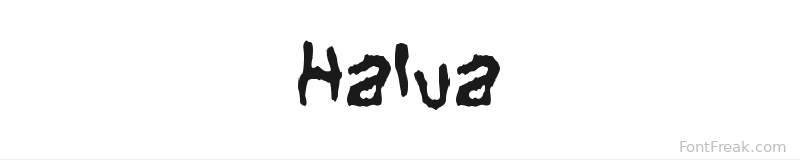
Halua
Halua, designed by Wahyu Eka Prasetya, is a captivating display font that beautifully blends artistic flair with legibility. This font falls into the category of decorative typefaces, characterized by its unique and playful style. The Halua font showcases a medium stroke weight with subtle contrast, giving it a hand-crafted feel while maintaining a consistent readability across various sizes. The irregular, flowing forms add a dynamic quality, making it ideal for creative projects that require a touch of personality.
Ideal for a range of applications, the Halua font is perfect for wedding invitations, where its whimsical style can enhance romantic themes. It's also a great choice for movie posters, adding an artistic edge that can draw in viewers. Additionally, restaurant menus can benefit from Halua’s inviting appearance, creating a warm atmosphere for diners. Content creators will find this font suitable for social media graphics, as its eye-catching design can elevate any post to stand out in crowded feeds.
The target audience for Halua includes graphic designers looking for innovative ways to express brand identity, small business owners wanting to create memorable marketing materials, and content creators seeking to add a unique touch to their online presence. Its versatility makes it a valuable addition to any designer's toolkit.